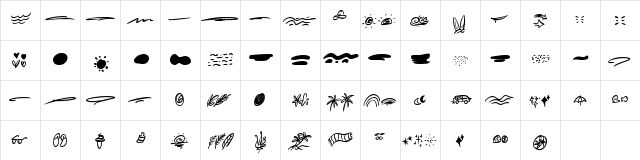
Summer Lovers Dingbat Regular
Design Context for Summer Lovers Dingbat Typeface
Summer Lovers Dingbat is a composed and adaptable typeface that performs quietly and consistently across a wide range of design contexts.
Pro Tip: Pair Summer Lovers Dingbat with a font of contrasting weight or personality to build a more expressive typographic hierarchy.